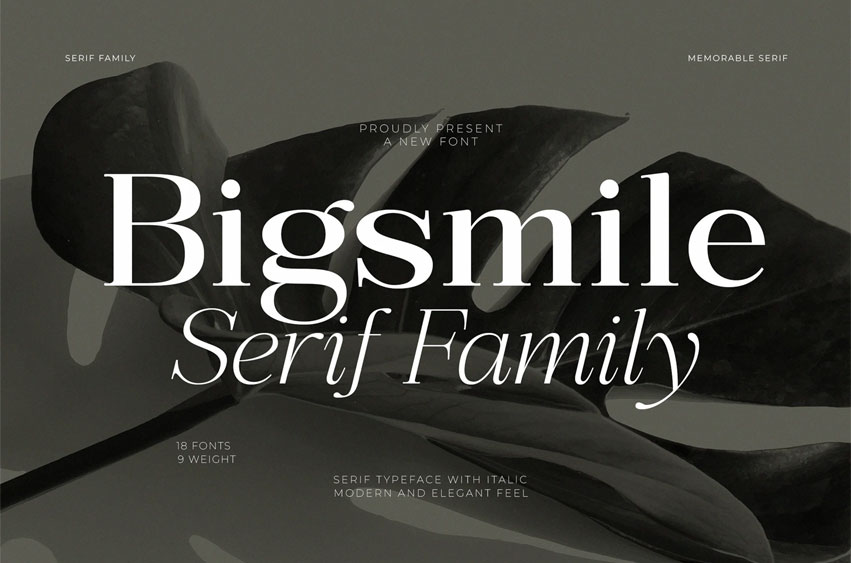
Bigsmile Font
Bigsmile Font  Serif Family Typeface — a beautifully crafted typeface that blends classic elegance with a clean and modern aesthetic. With its strong personality and refined structure, Bigsmile adds a dynamic and sophisticated touch to any creative project. Designed with precision and attention to detail, this font family consists of 18 unique styles, each thoughtfully paired with its own italic variation, offering great versatility and flexibility.
Whether you’re working on bold titles, striking headlines, narrative text, or even branding elements like logos and monogram letters, Bigsmile delivers a polished and expressive result. Its smooth curves and balanced proportions make it ideal for both digital and print media, bringing a sense of clarity and creativity to your work. We hope you enjoy exploring the potential of Bigsmile in your designs — stay inspired and keep creating!